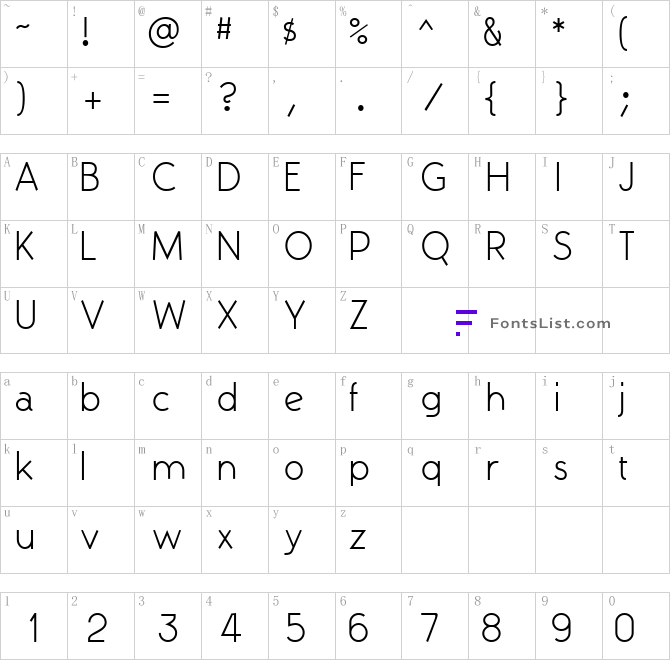
- Font Name:AndrewAndreas
AndrewAndreas-Plain.ttf is a very beautiful artistic font, AndrewAndreas-Plain.ttf is widely used in the design and printing of various books and pictures,AndrewAndreas-Plain.ttf has a strong visual impact,AndrewAndreas-Plain.ttf is a commonly used font in newspapers, magazines and books, and is used in posters, e-commerce Poster design, store design, logo design, font design and other fields.AndrewAndreas-Plain.